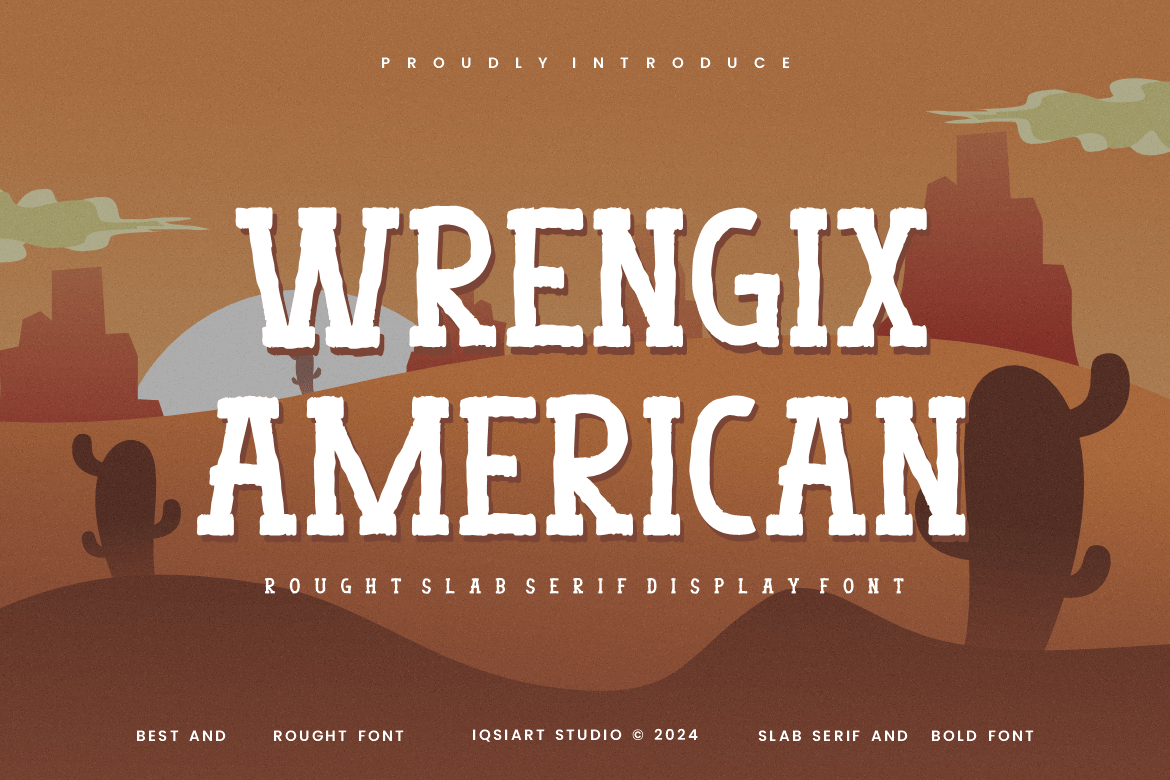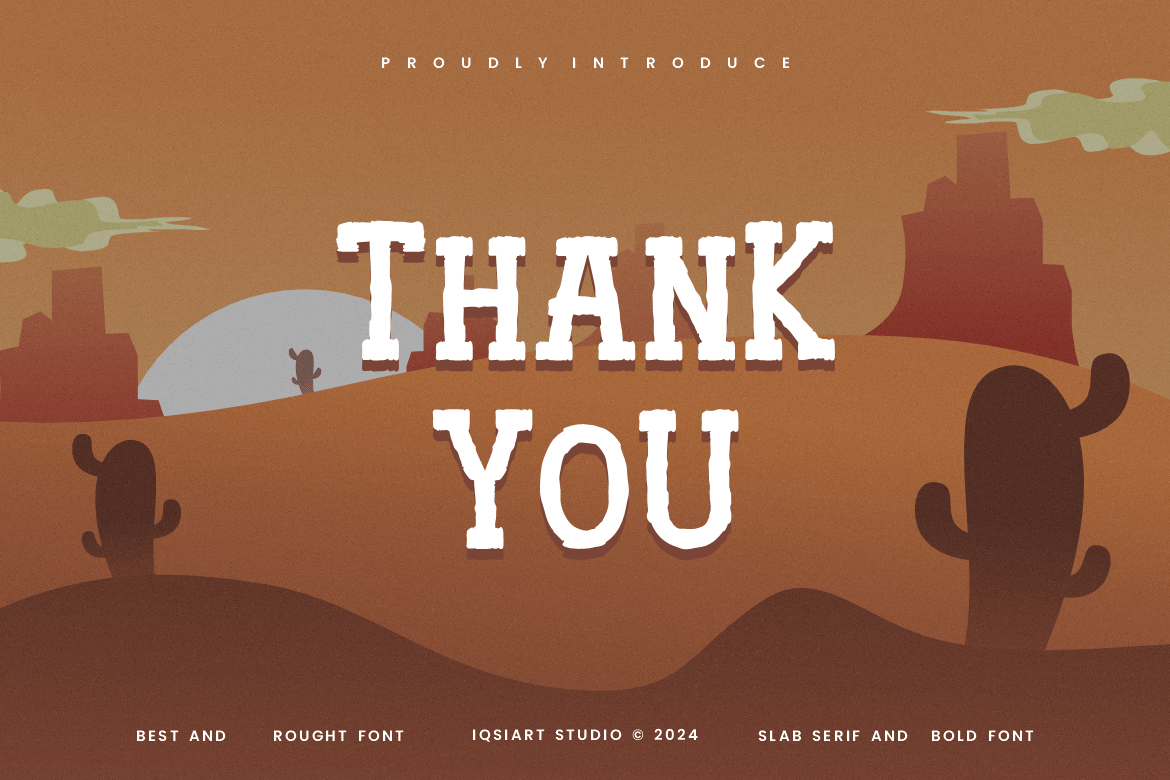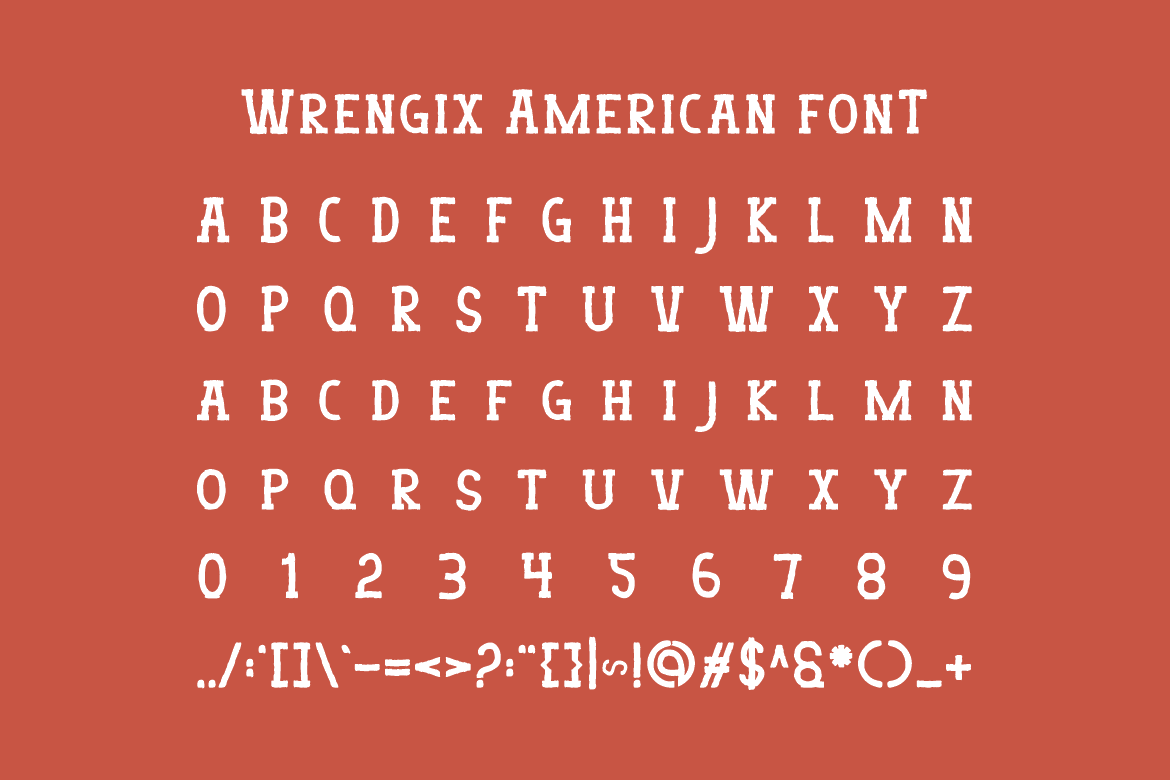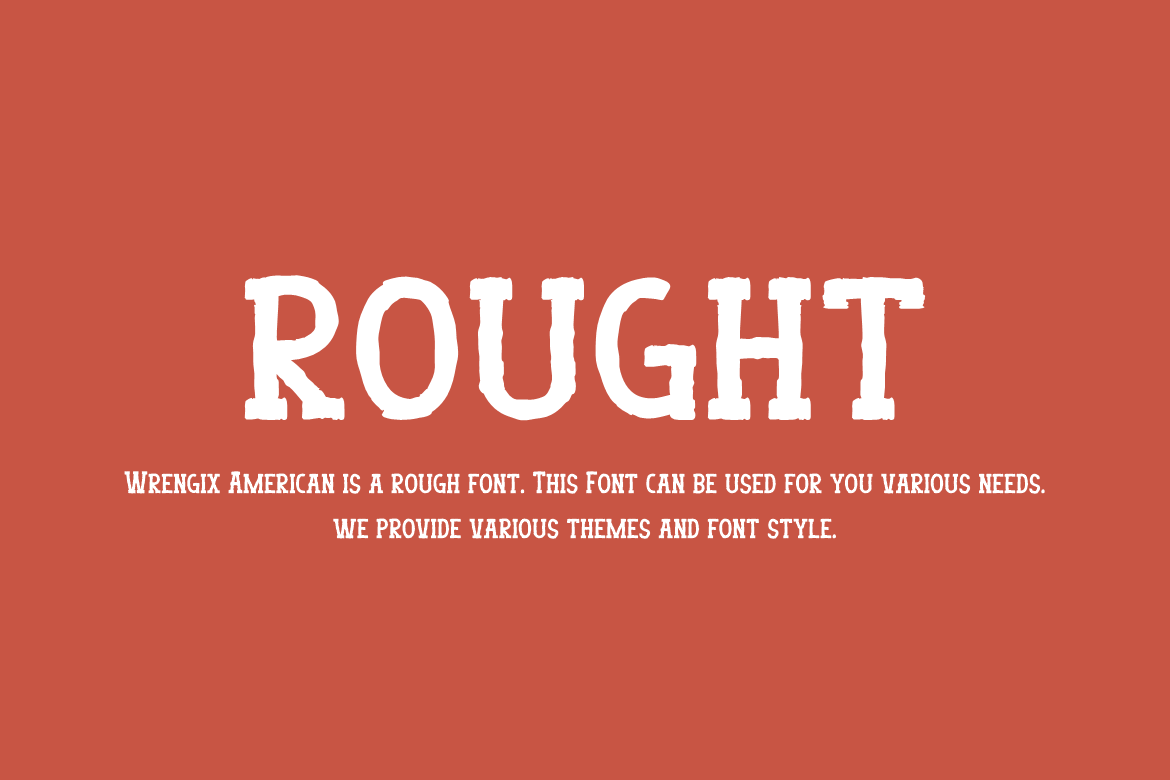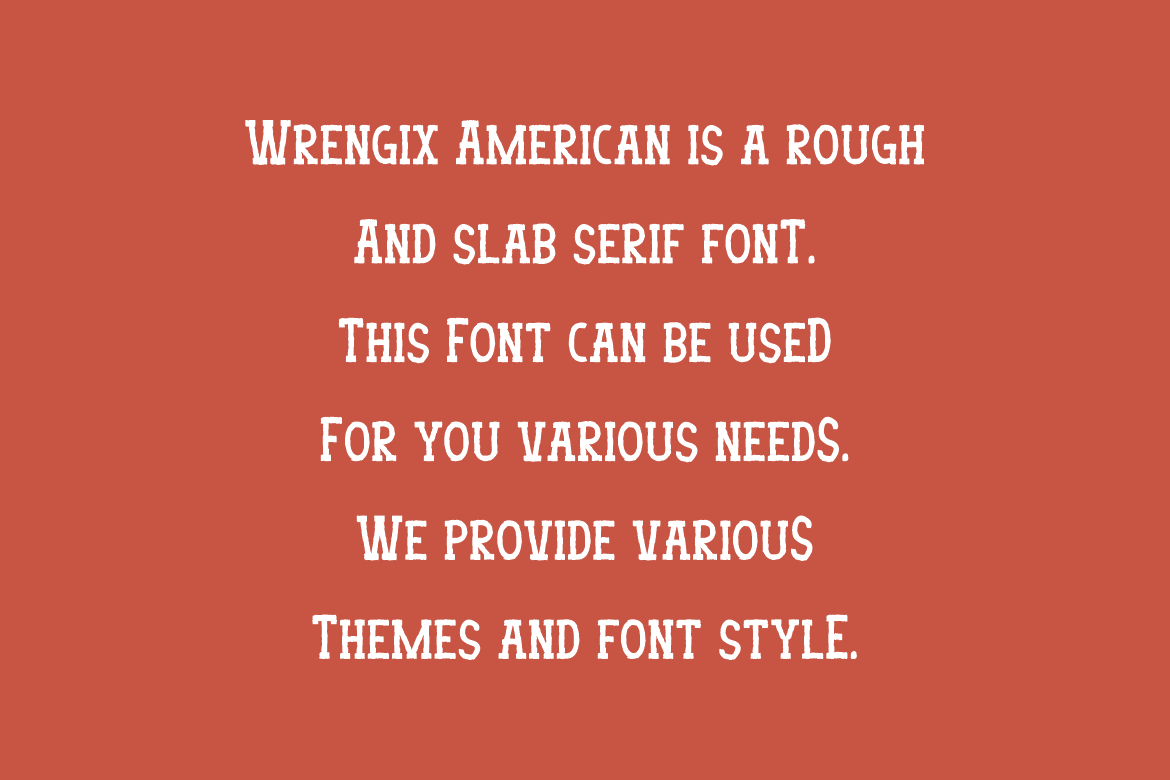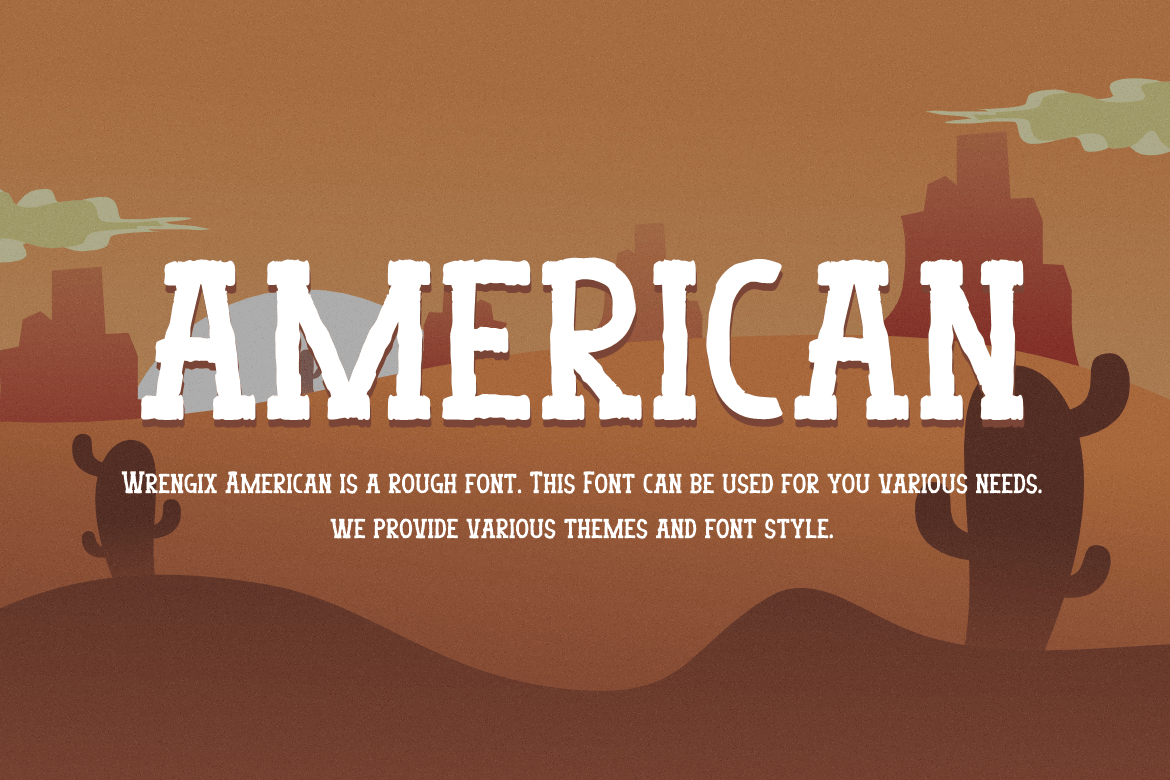
Wrengix American – Tropical & Western Font
Wrengix American Font is a tropical and authentic display font.
This font can be used for your various needs.